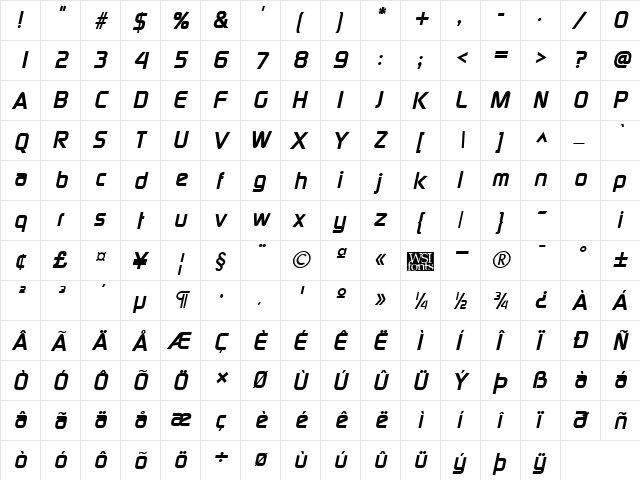
Modaerne Bold Italic
Design Context for Modaerne Typeface
Modaerne takes a measured approach to typography — its balanced proportions and neutral character make it a reliable workhorse for both digital and print work. The dynamic lean of this cut emphasises speed and emphasis in any layout. Its bold stroke weight gives it real presence on the page.
Pro Tip: Try Modaerne for annotation and caption copy alongside an upright companion — the contrast in angle creates a dynamic but ordered typographic system.